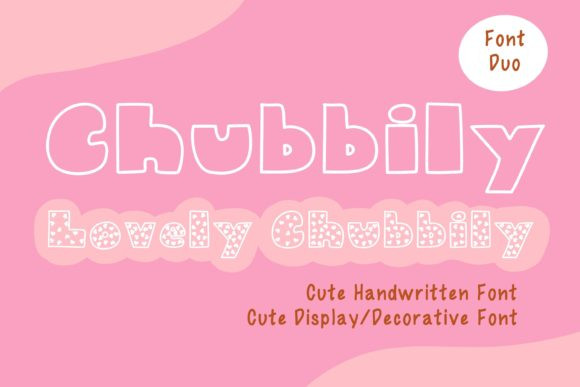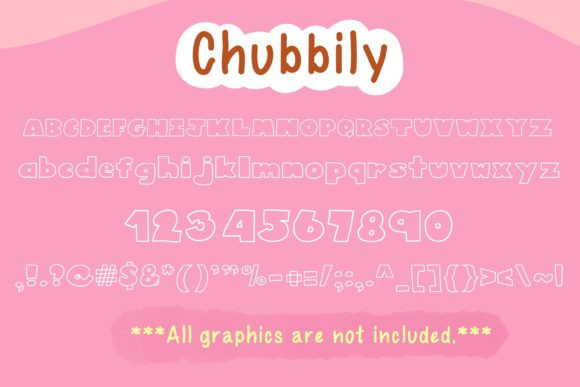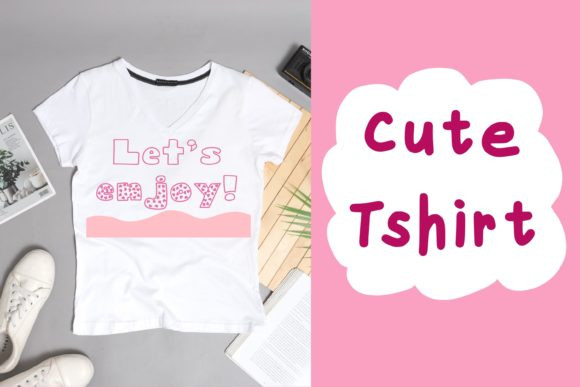
Chubbily and Lovely Chubbily Font
This absolutely adorable duo font (display and decorative) can add a jolly feel to any of your beautiful creations! It will brighten up any design and create a trendy vibe!